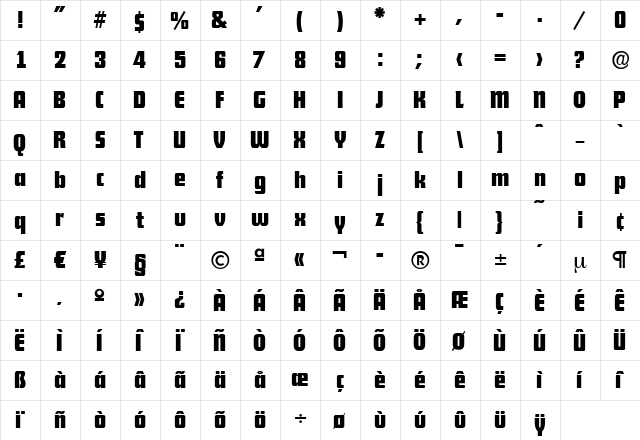
AllisonBecker Bold
Design Context for AllisonBecker Typeface
AllisonBecker takes a measured approach to typography — its balanced proportions and neutral character make it a reliable workhorse for both digital and print work. The heavy weight commands attention and anchors typographic hierarchies.
Pro Tip: Use AllisonBecker in both headline and body roles to test its range before committing to a single application.